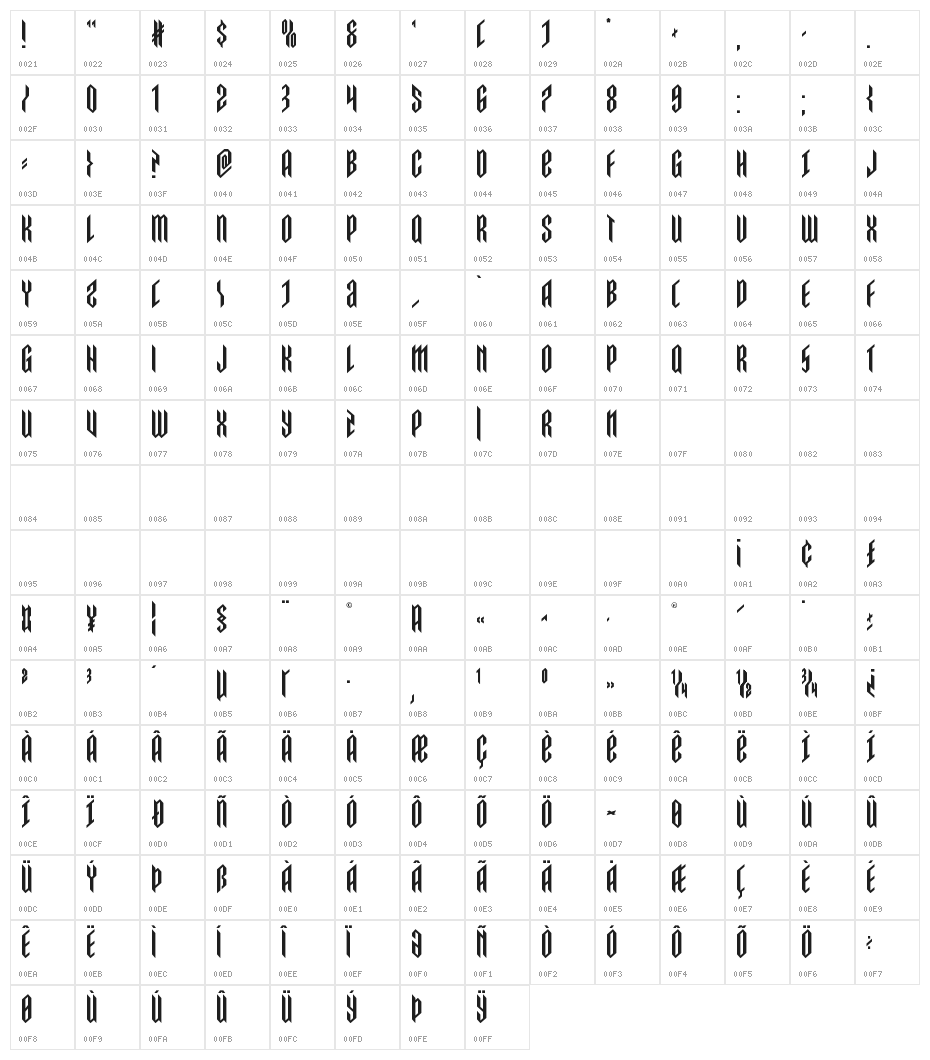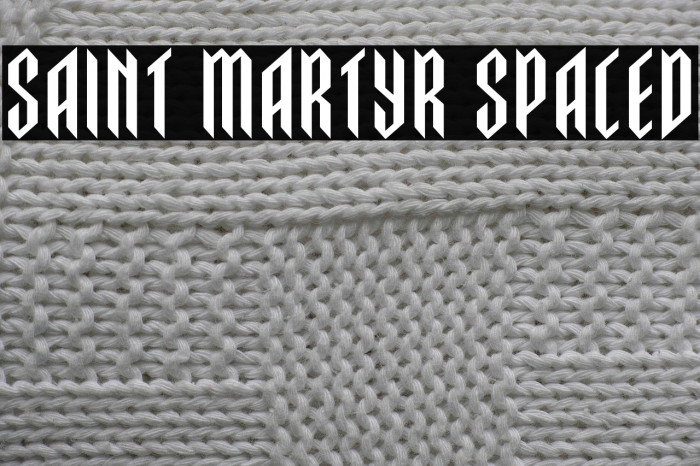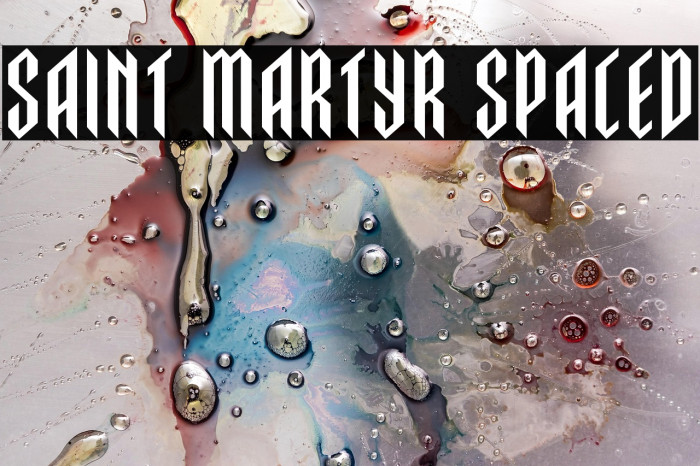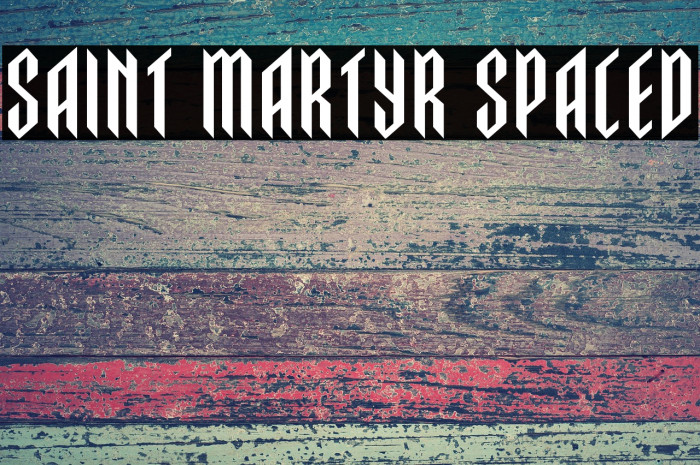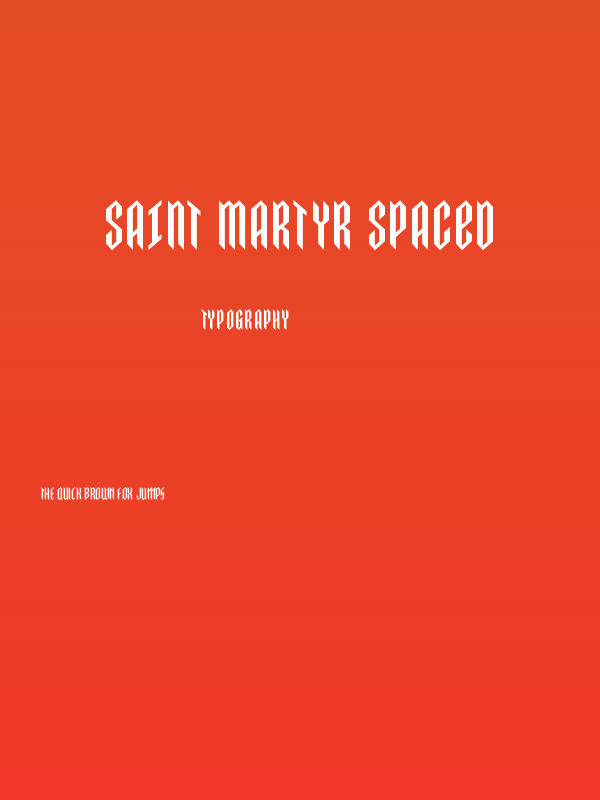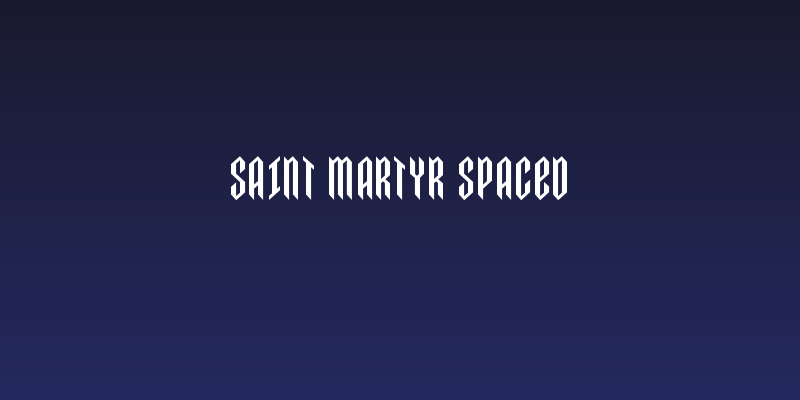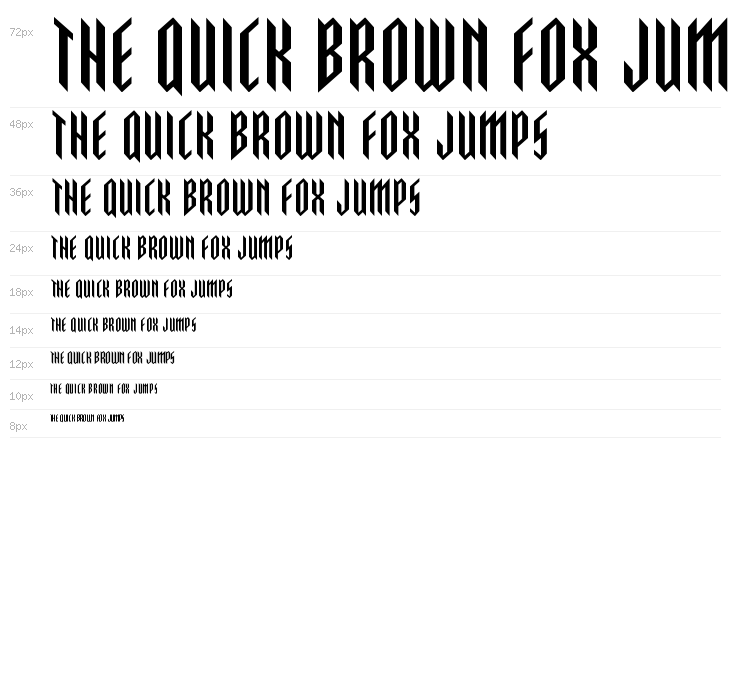
Saint Martyr Spaced Font
Saint Martyr Spaced Description
This font features a bold, angular design with a strong geometric influence. The characters are sharply defined with a distinct blackletter style, reminiscent of Gothic script. Each letter is crafted with precision, showcasing a modern twist on traditional calligraphy. The uppercase and lowercase letters maintain a consistent height, creating a uniform appearance. The numerals and special characters are equally bold, with a unique flair that complements the overall aesthetic. This font is ideal for making a statement, with its striking presence and artistic flair.